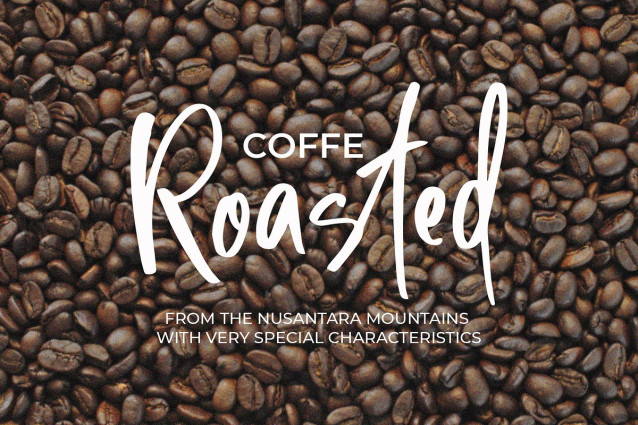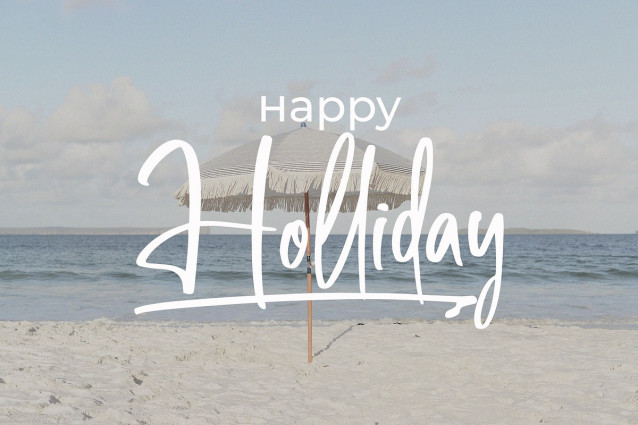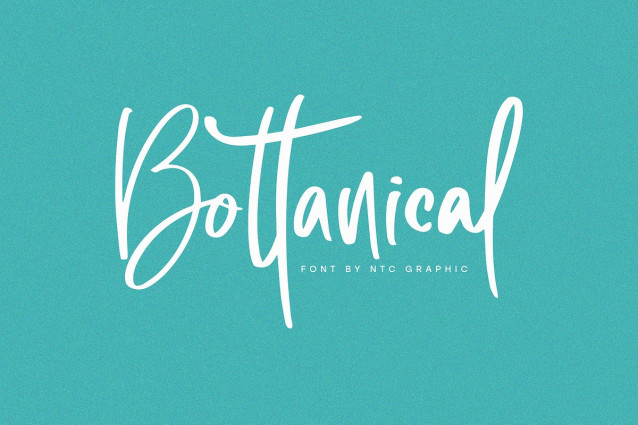
Bottanical Handwritten Font
Bottanical Handwritten Font is a handwritten font with minimalist style. Is a font style that is made with unique shapes font characters are really good. Can be applied to support the graphic appearance of the product to be more attractive.